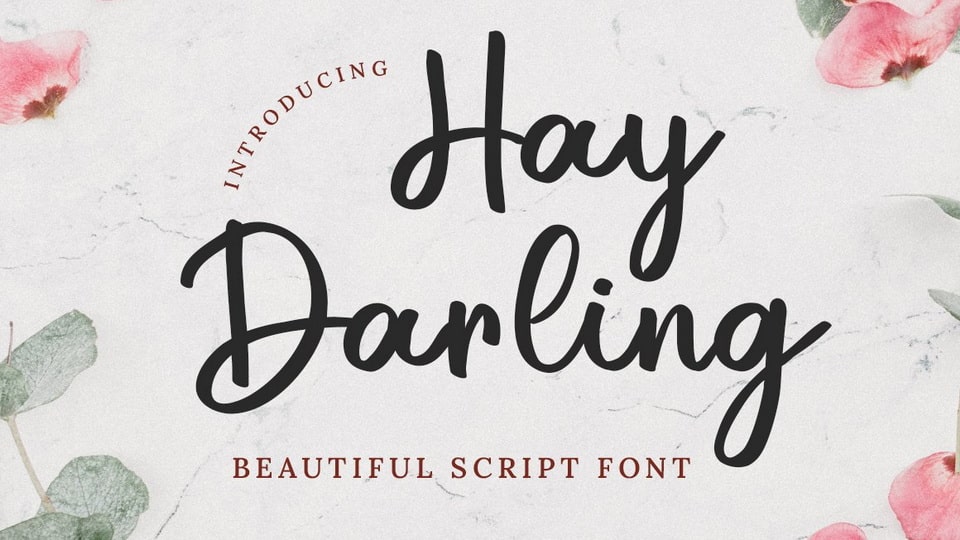
Download Hay Darling font, a sweet and cool script that easily combines legibility and authenticity! Hay Darling font is suitable for use on weddings, social media, logos, magazines, quotes, fashion, watermarks, invitations.